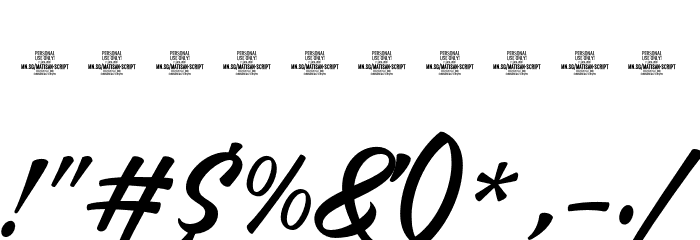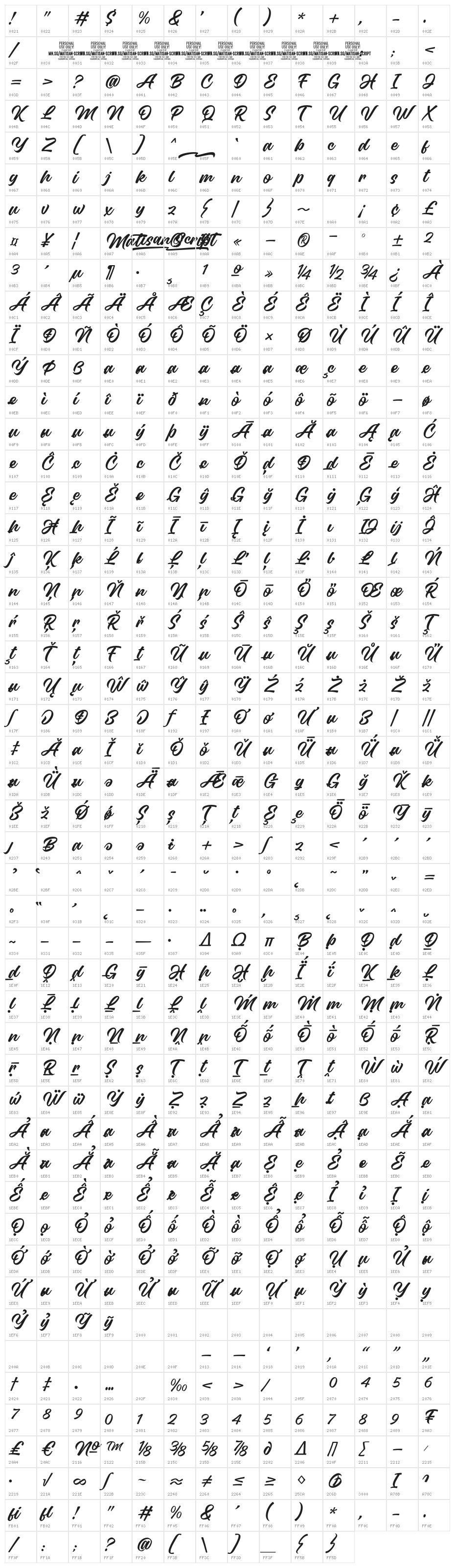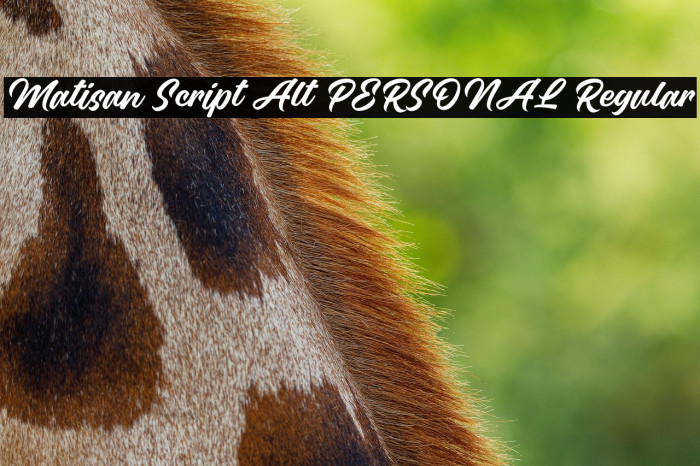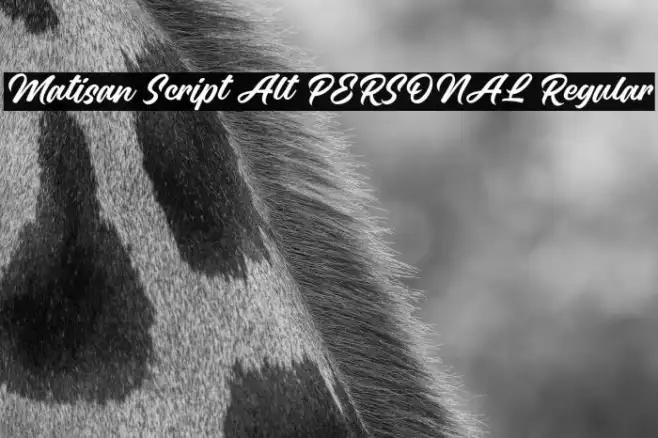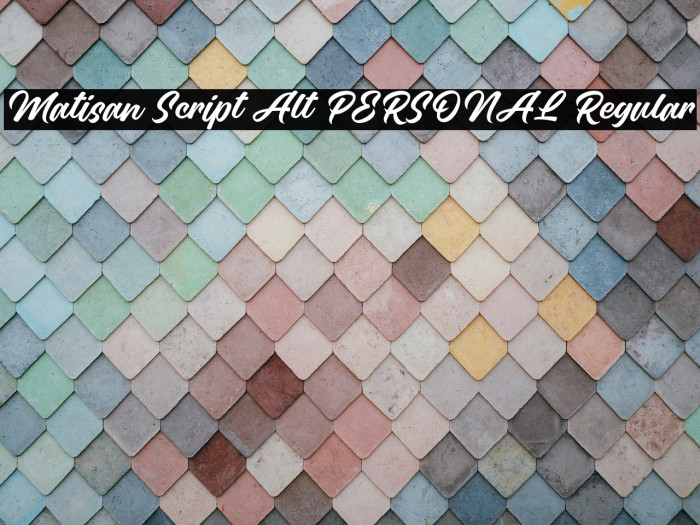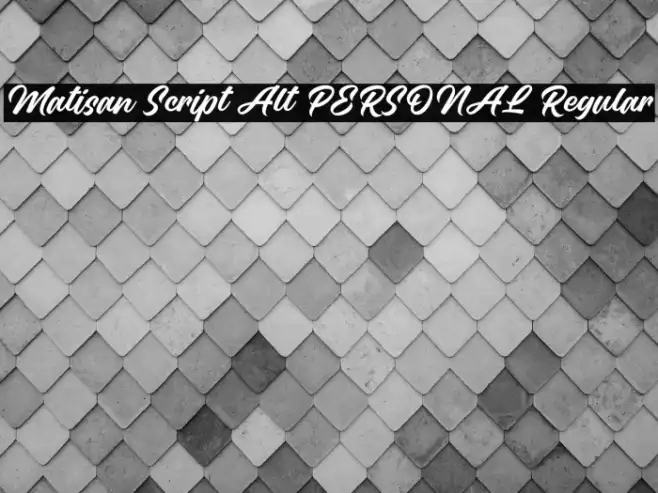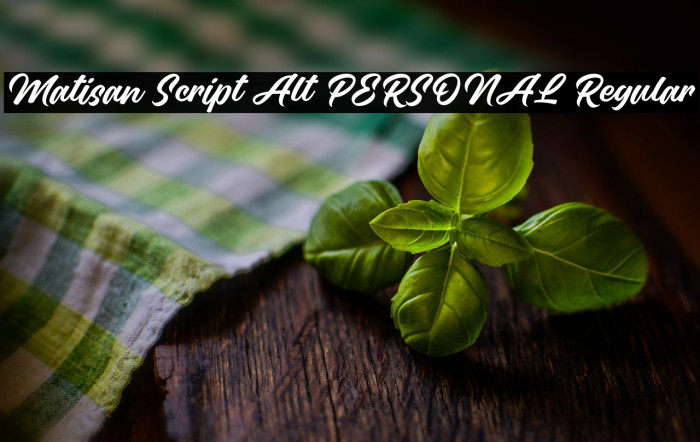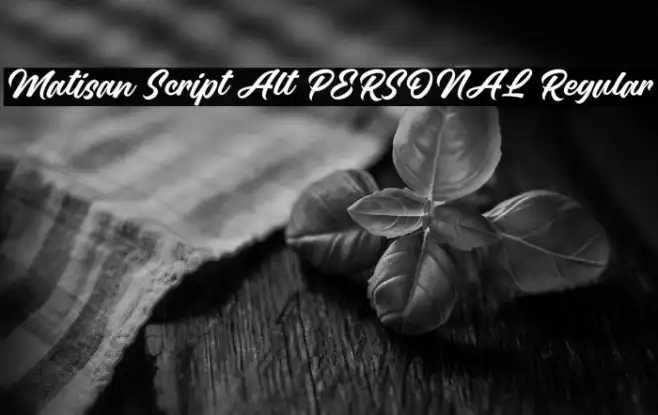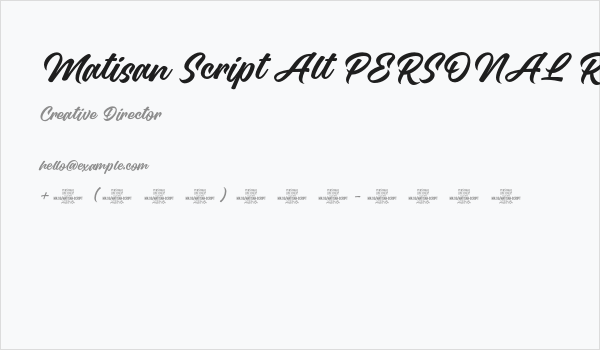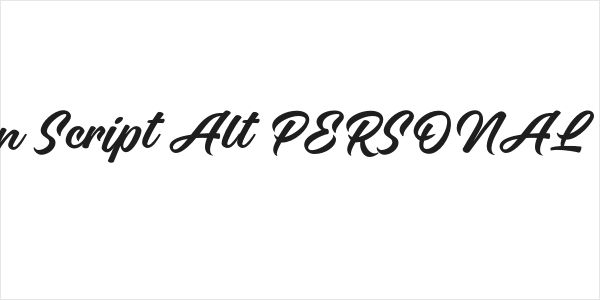
Matisan Script Alt PERSONAL Regular Font
Matisan Script Alt PERSONAL Regular Description
This font exhibits a bold and flowing script style, characterized by its elegant and cursive letterforms. The uppercase letters are prominently designed with sweeping curves and a consistent stroke width, giving a sense of fluidity and grace. The lowercase letters maintain a harmonious balance with their slightly slanted orientation, enhancing the overall script aesthetic. The numerals and special characters are crafted to match the script's dynamic style, ensuring a cohesive look across all glyphs. This font's design is both expressive and legible, making it suitable for creative and decorative applications.